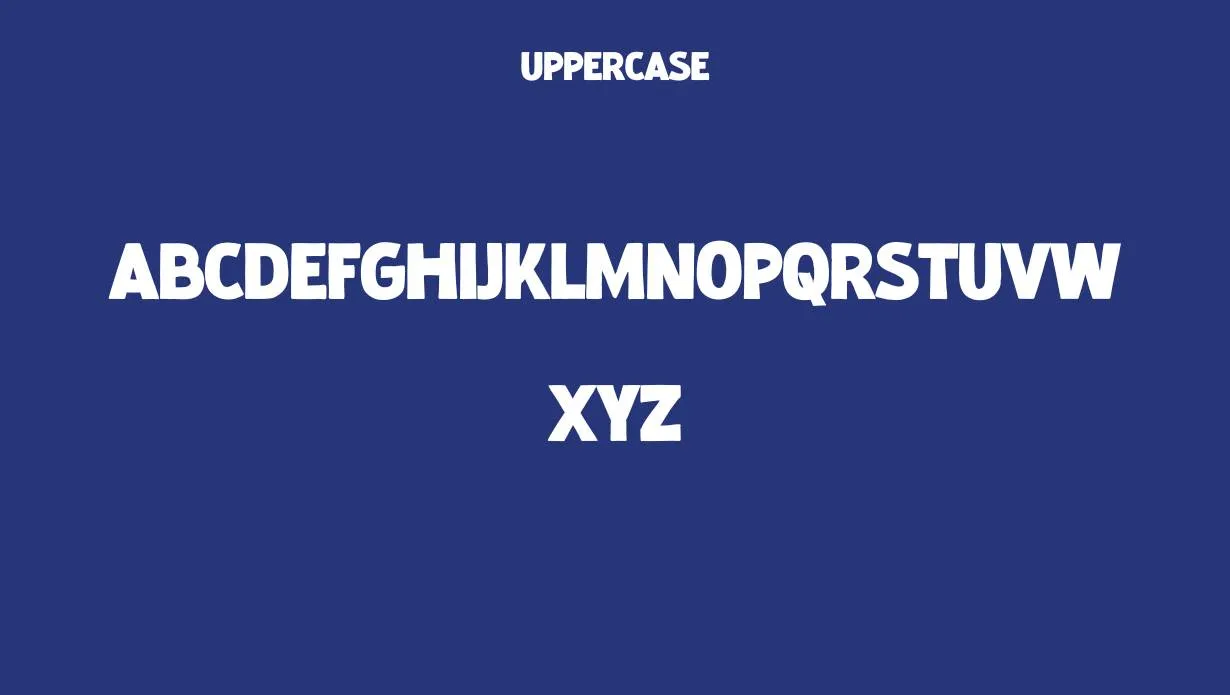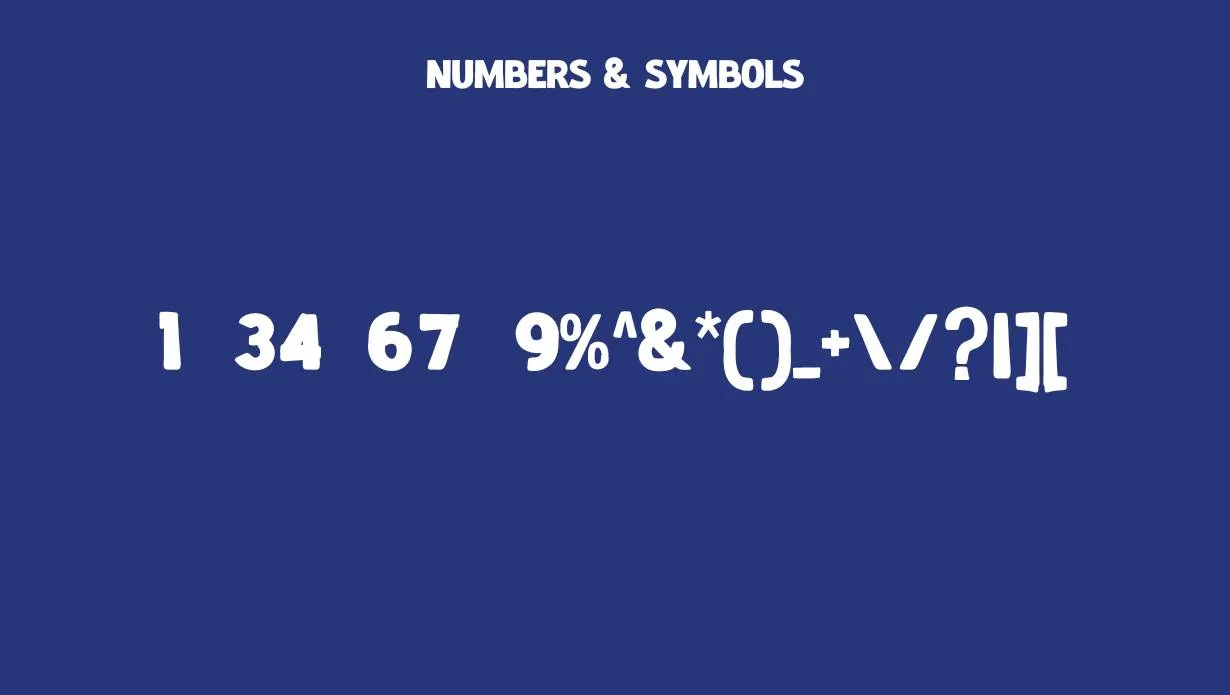
In 2021, Gassstype Studio released a new eye-catching Display font called Baby Stingrays, designed by Anang F & Malik Wsn.
This typeface was motivated by the decorative arts and architecture movement. It comes with TTF and OTF formats and a solo weight. To make more attractive and gorgeous designs for your projects you can pair this font with sambosa font and the fallouts will be surprising.
Baby Stingrays Font Family